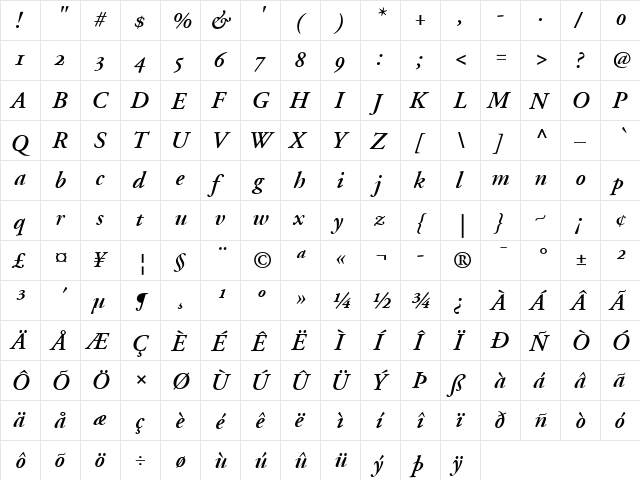
AGaramond RegularSC Bold Italic Font Preview
Design Context for AGaramond RegularSC Typeface
AGaramond RegularSC offers clean, dependable letterforms without strong stylistic allegiance, making it a practical choice for designers who need flexibility. The slanted form adds forward momentum and visual energy. Its bold stroke weight gives it real presence on the page.
Pro Tip: Try AGaramond RegularSC for annotation and caption copy alongside an upright companion — the contrast in angle creates a dynamic but ordered typographic system.